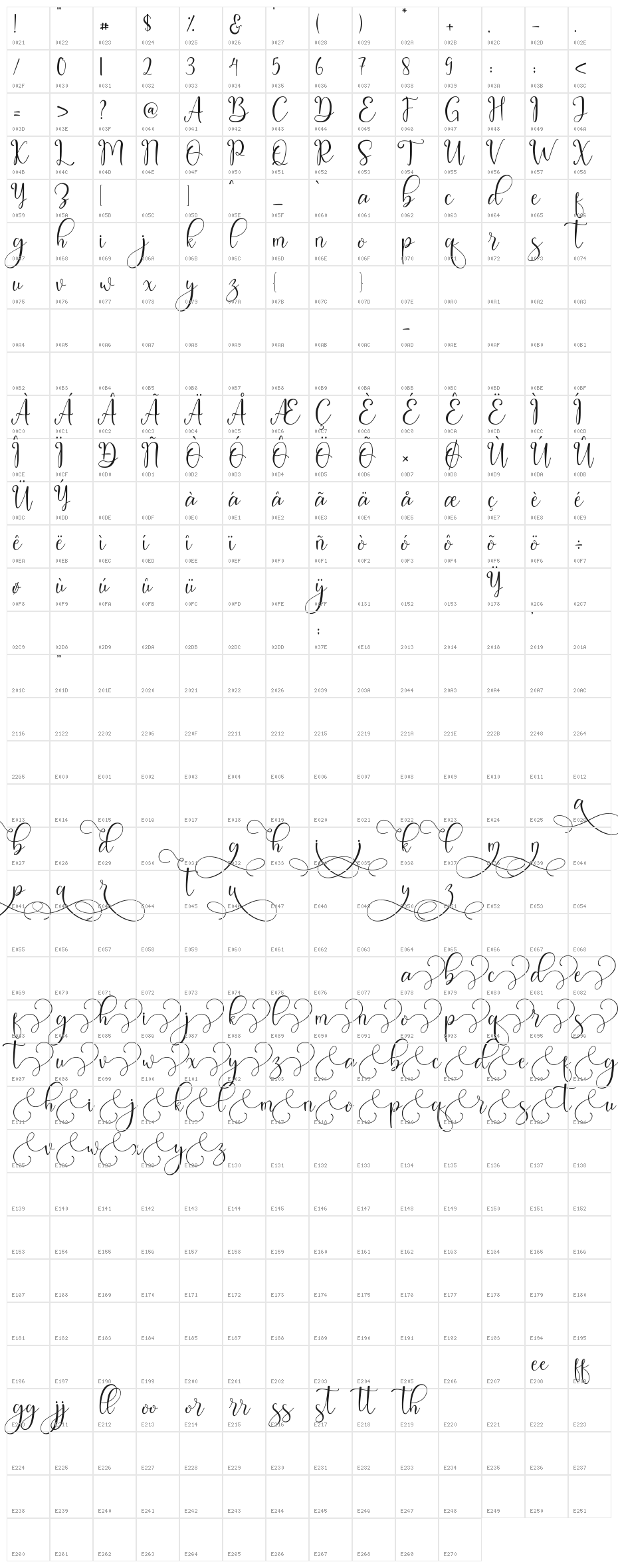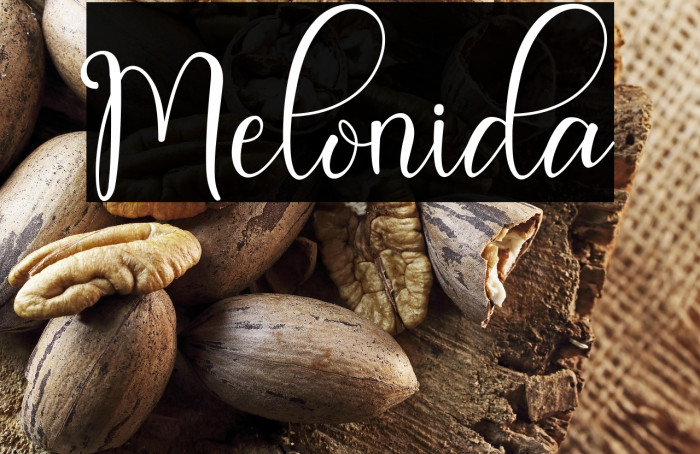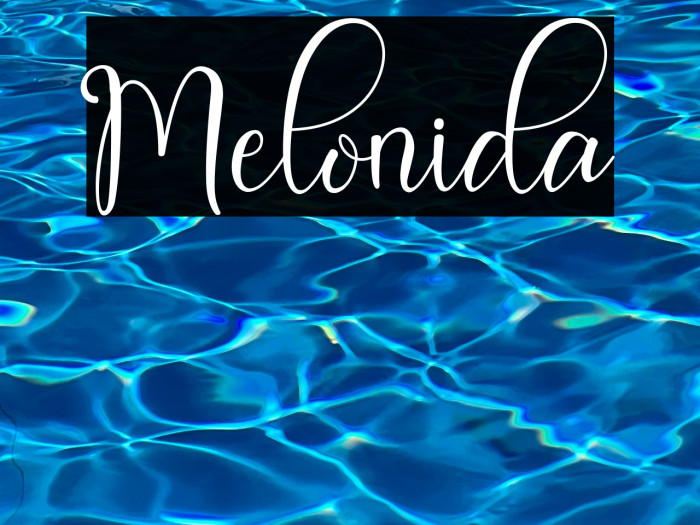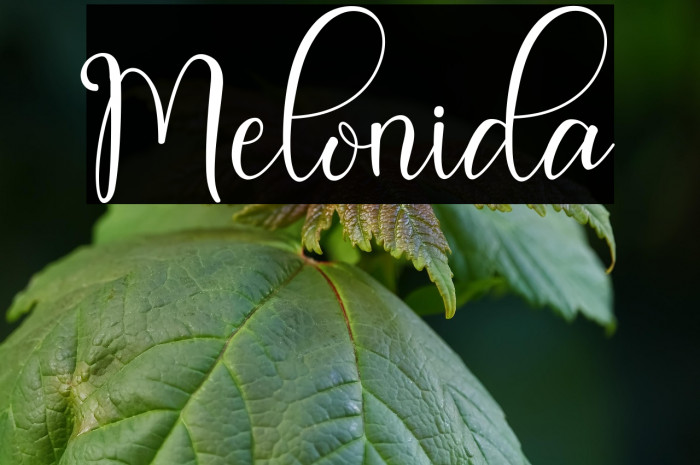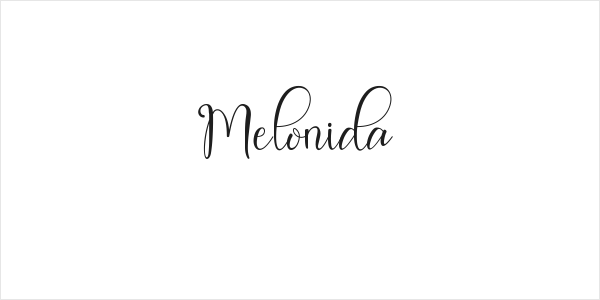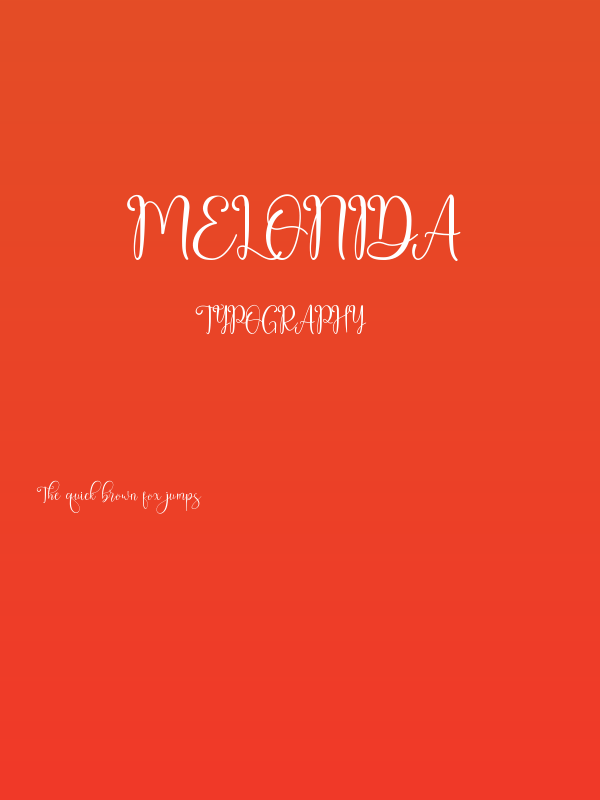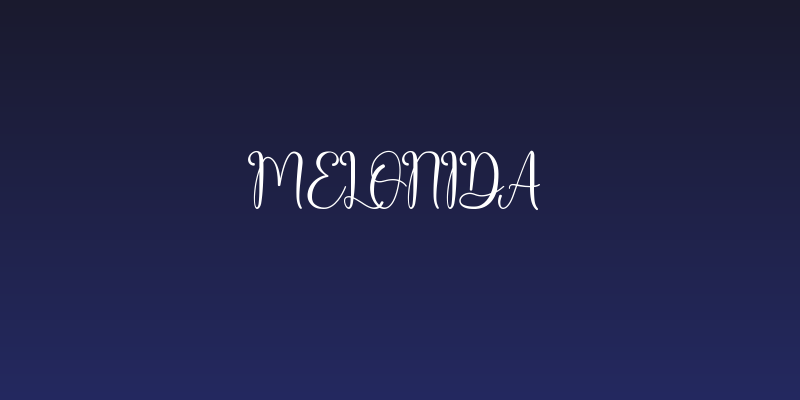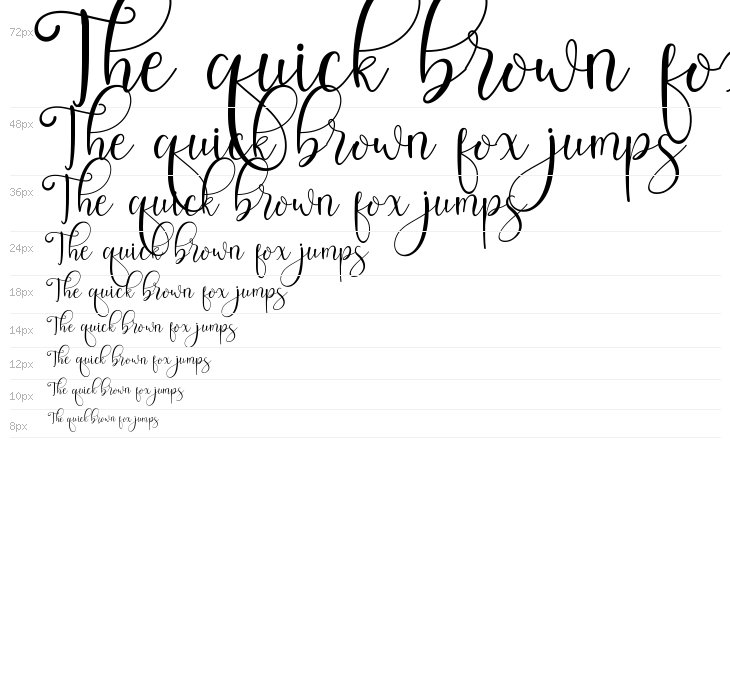
Melonida Font
Melonida Description
This elegant script font features flowing, interconnected letters that exude a sense of sophistication and grace. The uppercase characters are tall and slender, with sweeping curves that create a sense of movement. The lowercase letters are equally graceful, with loops and flourishes that add a decorative touch. The numerals are consistent with the overall style, maintaining the same elegant curves. Special characters are designed with the same attention to detail, ensuring a cohesive look across all glyphs. This font is perfect for projects that require a touch of elegance and style.
| Use Case | Logos, Invitations, Decorative Headlines |
| Proposed Projects | Ideal for wedding invitations, elegant branding, luxury product packaging, and decorative headlines. |